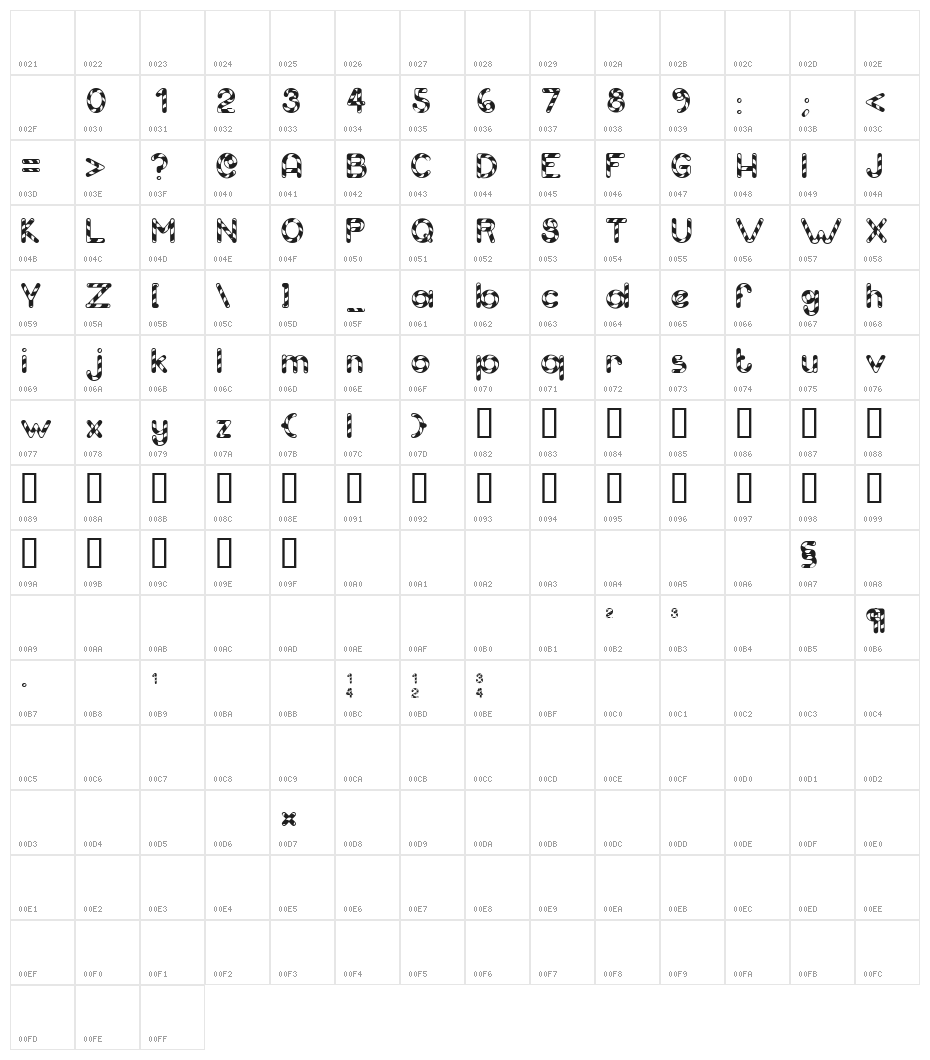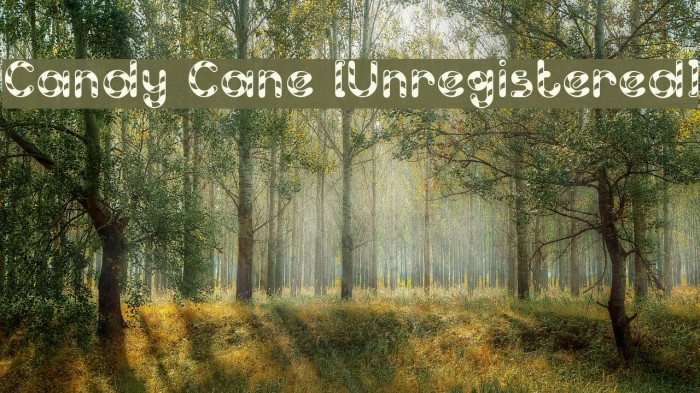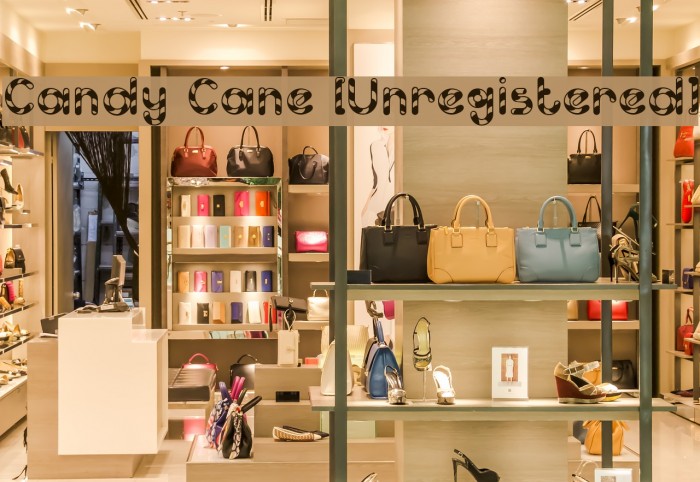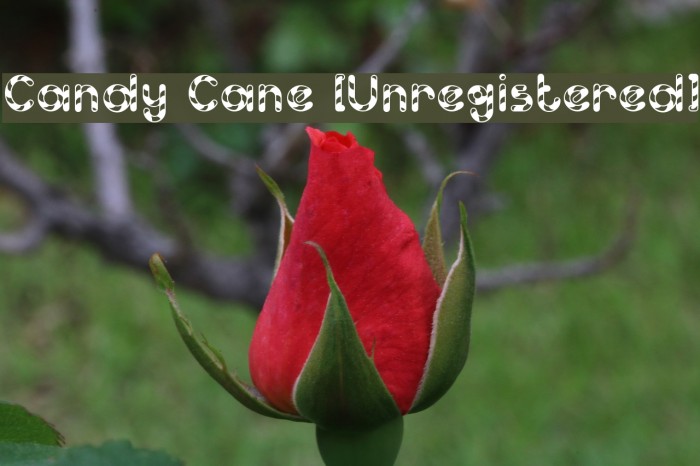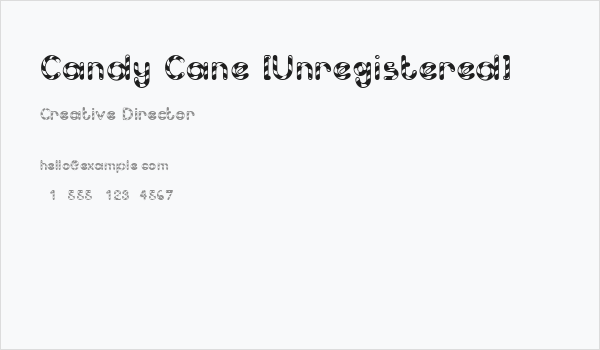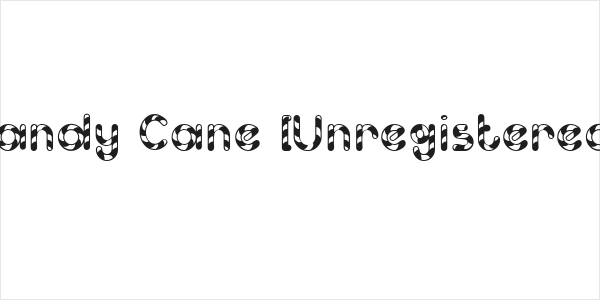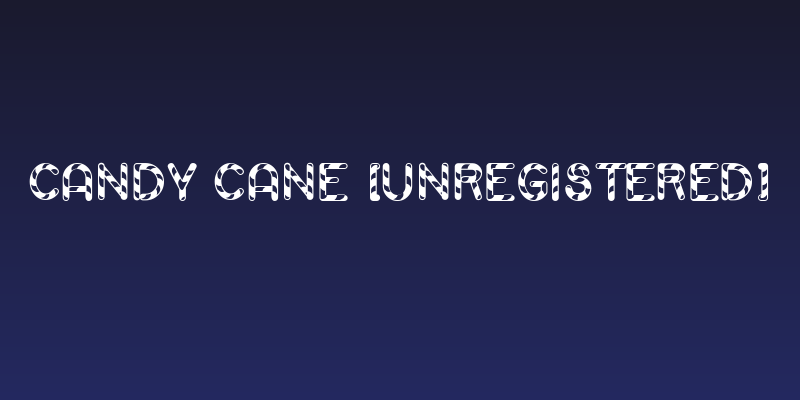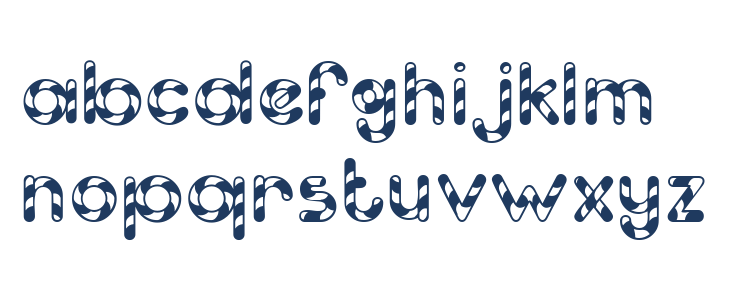
Candy Cane [Unregistered] Font
Candy Cane [Unregistered] Description
This playful and decorative font features a candy cane-inspired design, with each character resembling the iconic striped pattern of a candy cane. The letters are bold and rounded, with alternating stripes of black and white that create a festive and whimsical appearance. The font maintains a consistent thickness throughout, giving it a uniform look that is both eye-catching and fun. The uppercase and lowercase letters, as well as numbers and special characters, all follow this unique candy cane theme, making it perfect for holiday-themed projects or any design that requires a touch of cheerfulness and creativity.
| Proposed Projects | Ideal for holiday cards, festive banners, children's party invitations, and playful branding. |